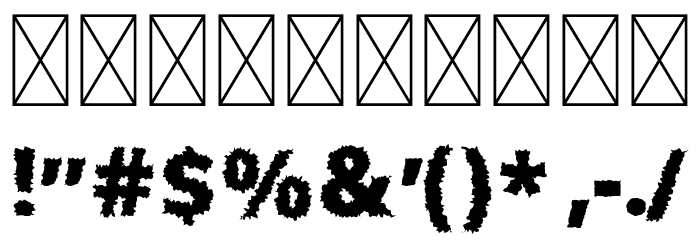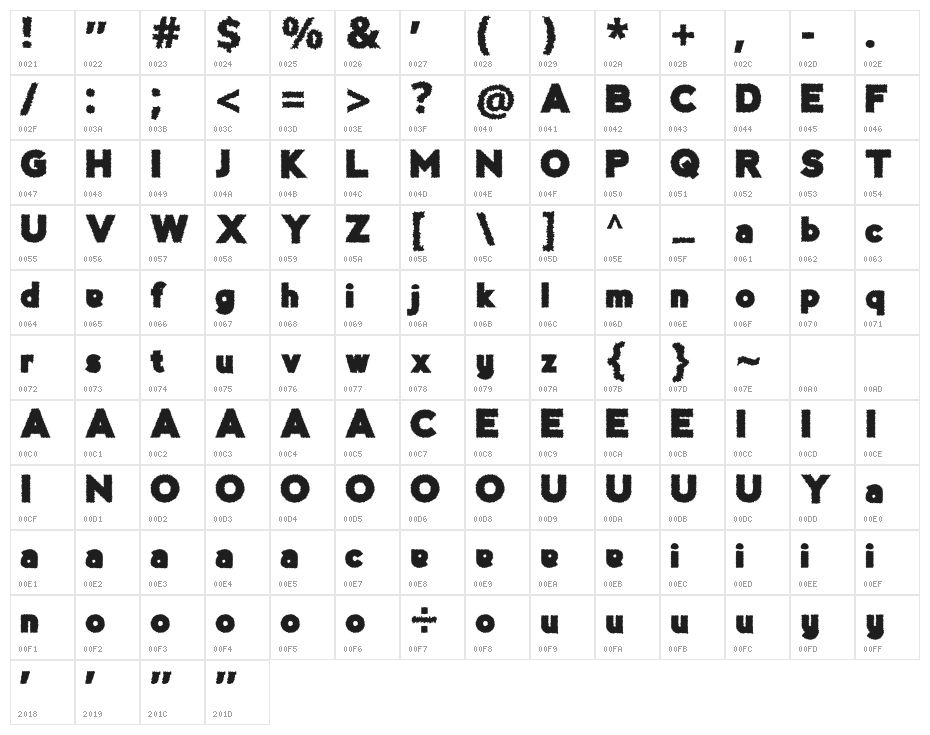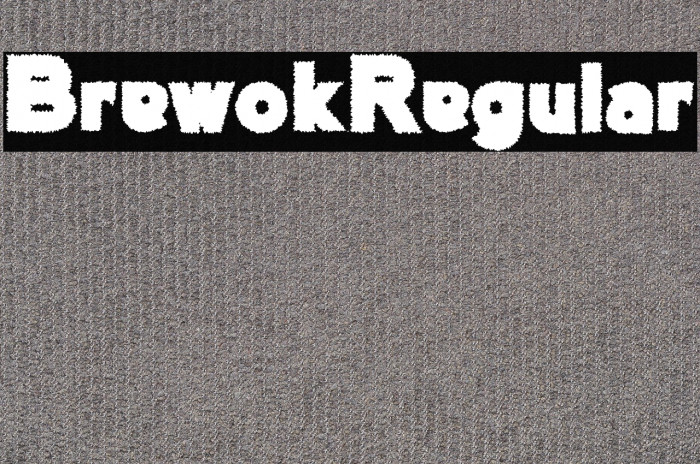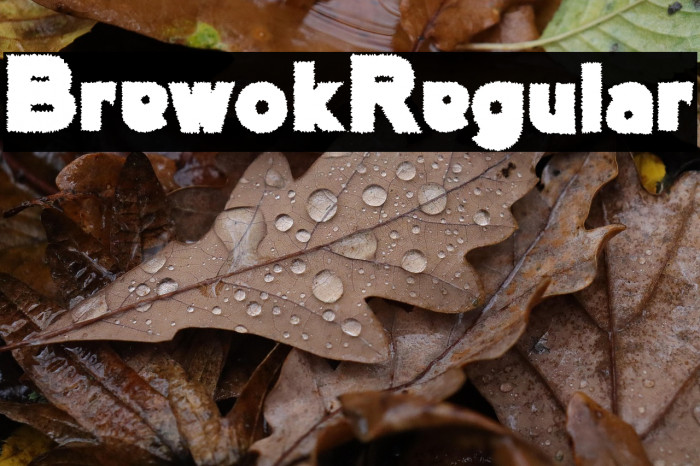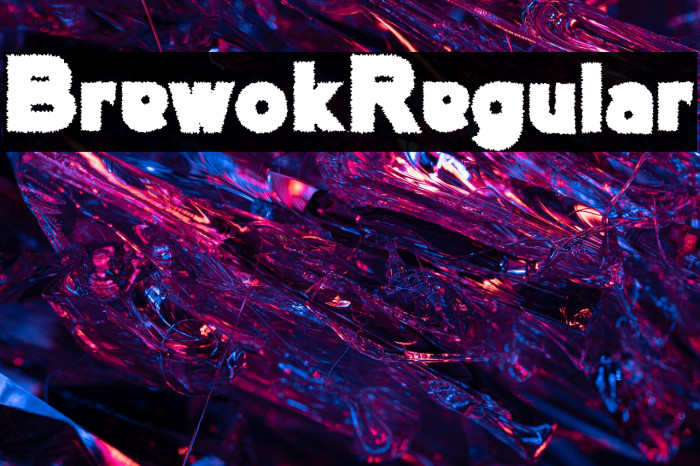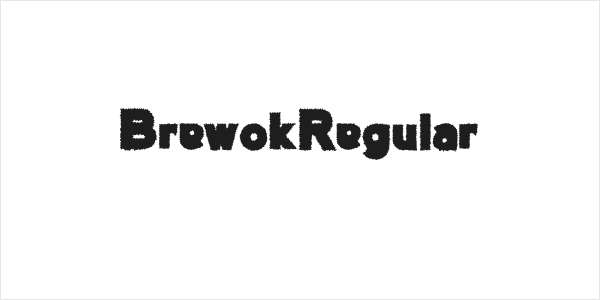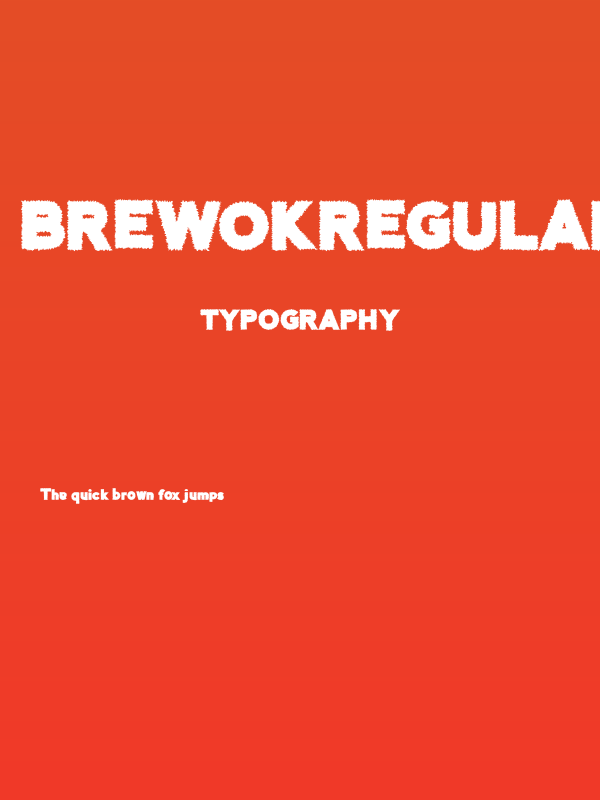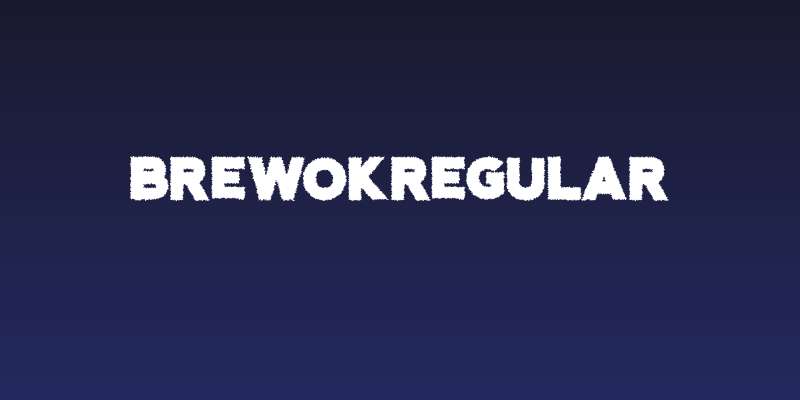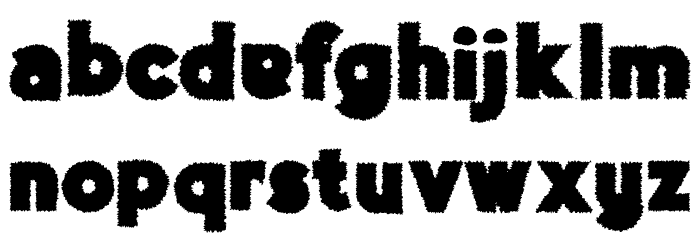
BrewokRegular Font
BrewokRegular Description
This font features a bold and playful design with a fuzzy, textured appearance that gives it a unique and eye-catching look. The characters are thick and robust, creating a strong visual impact. The uppercase and lowercase letters maintain consistent proportions, while the numbers and special characters complement the overall style. The texture adds a dynamic and energetic feel, making it suitable for creative and informal projects. Its distinctive style ensures that it stands out in any design, making it ideal for attention-grabbing headlines or artistic expressions.
| Proposed Projects | Ideal for posters, children's books, creative branding, and playful graphic designs. |